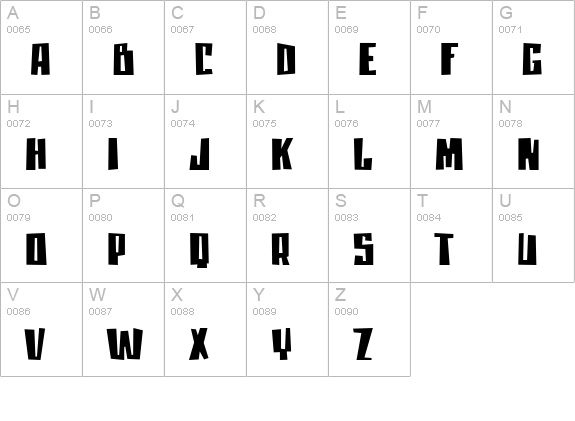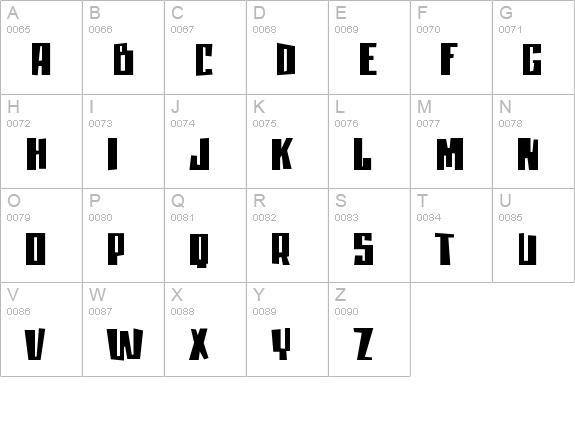
moanLisa Font Details
Introducing moanLisa font - a beautifully crafted typeface that exudes elegance and sophistication. With its unique combination of modern lines and classic style, moanLisa is perfect for adding a touch of charm to your design projects. This exquisite font is not only visually appealing but also versatile, making it suitable for a wide range of design applications. Whether you're working on branding, advertising, invitations, or any other creative project, moanLisa will elevate your designs to the next level. And the best part? moanLisa font is available for free download at FontsMarket.com, allowing you to access this stunning typeface without breaking the bank. Don't miss out on the opportunity to enhance your designs with the timeless beauty of moanLisa font. Download it today and let your creativity shine!